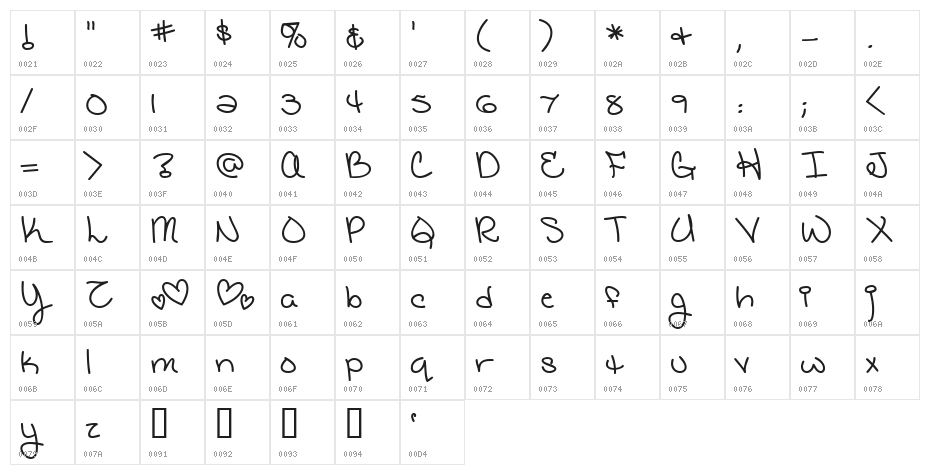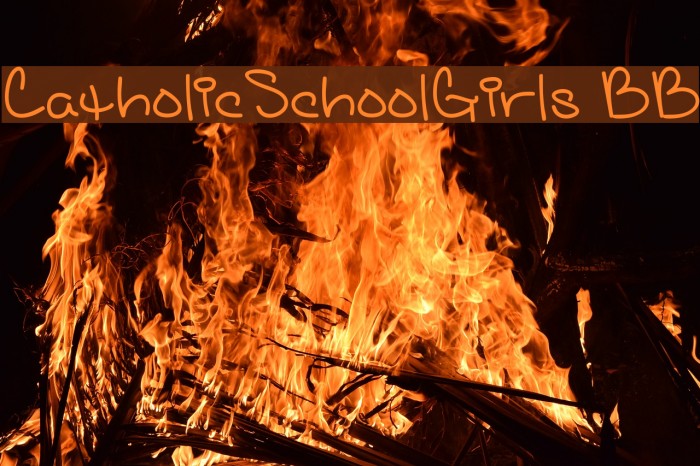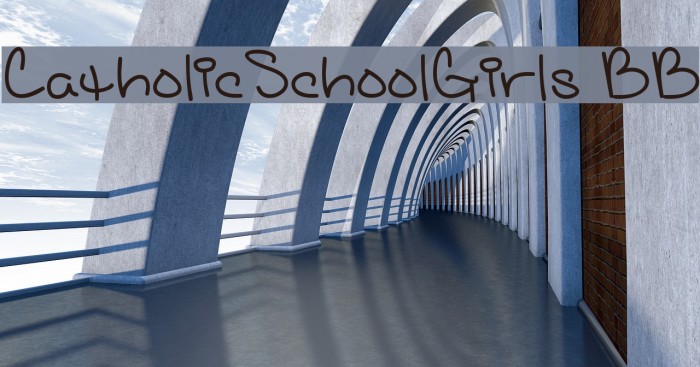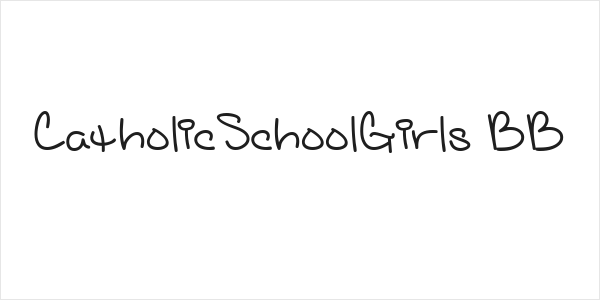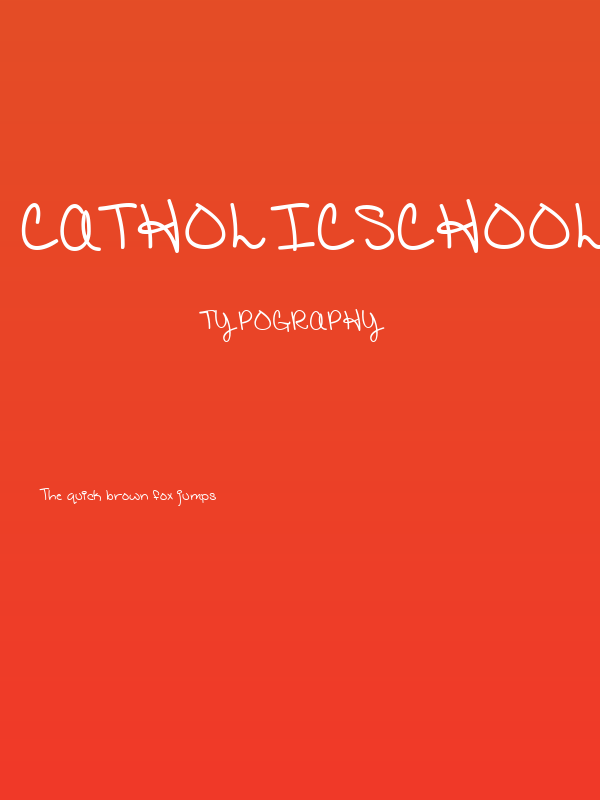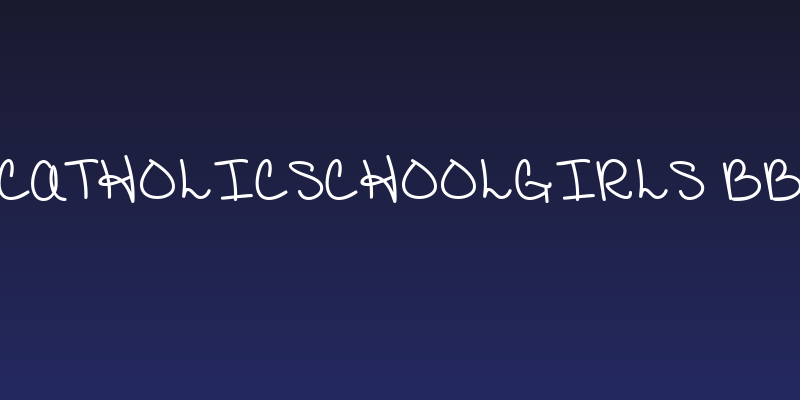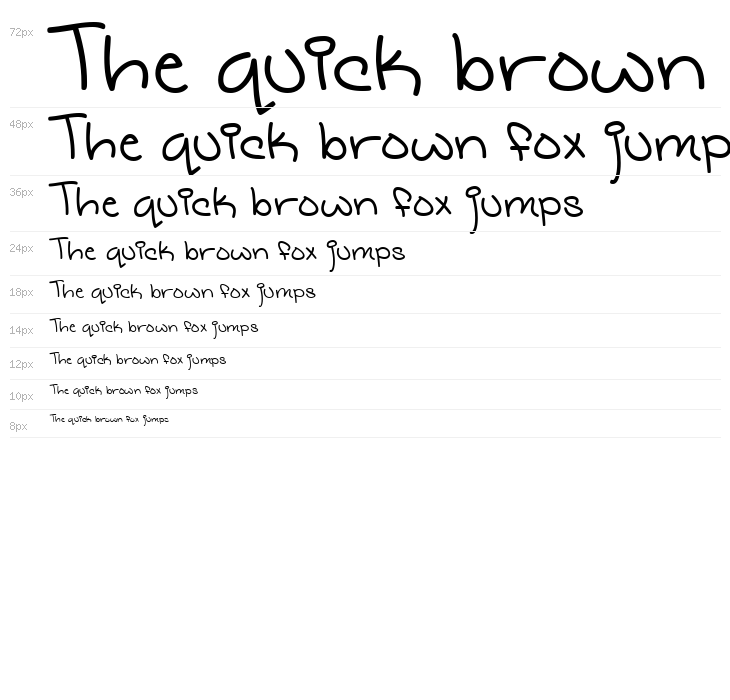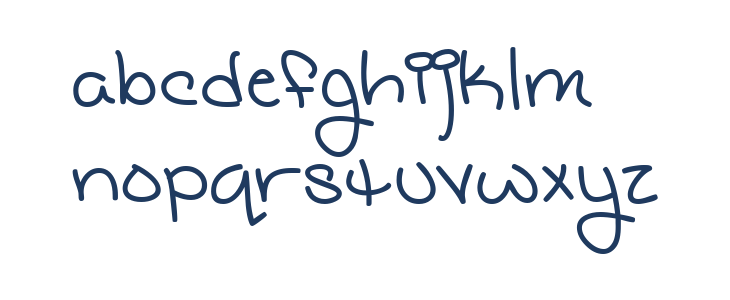
CatholicSchoolGirls BB Font
CatholicSchoolGirls BB Description
This playful and whimsical font features a handwritten style with a casual, friendly appearance. The letters are characterized by their rounded, flowing forms and slightly irregular strokes, giving them a lively and informal feel. The uppercase and lowercase letters maintain a consistent style, with a slight slant and a playful bounce that adds to the font's charm. The numerals and special characters are equally expressive, maintaining the same handwritten aesthetic. This font is perfect for projects that require a personal touch or a sense of fun and creativity.